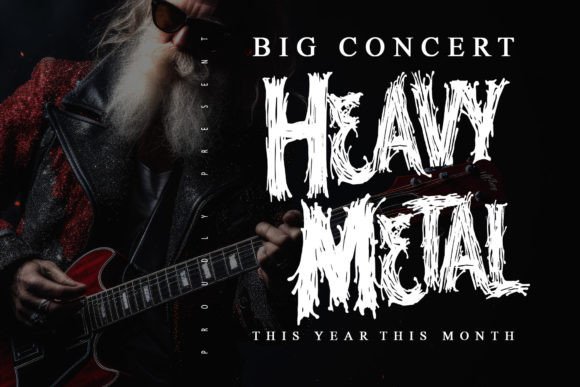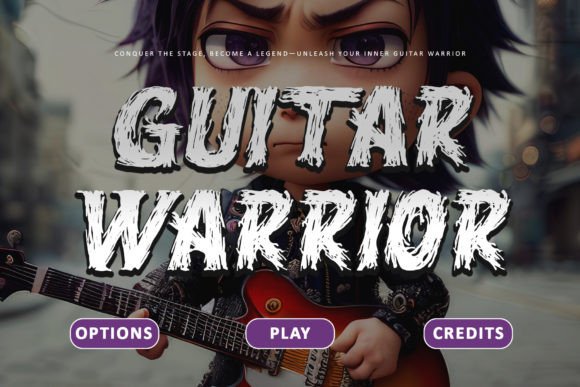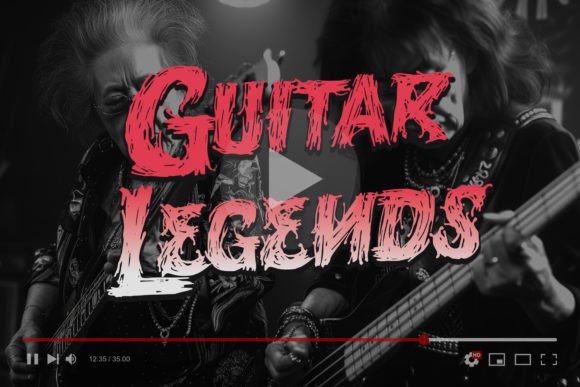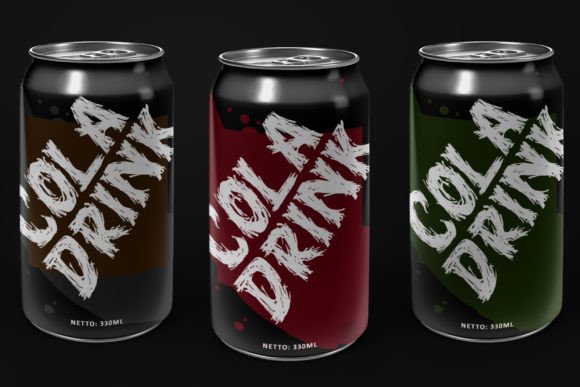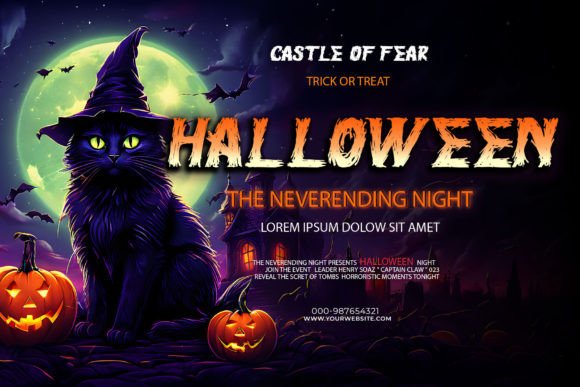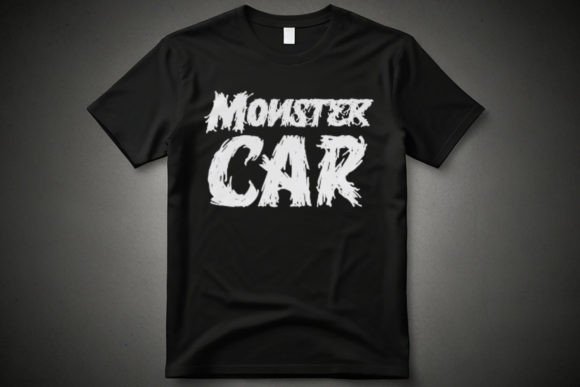
Introduction to Simbiot Font
Introducing Simbiot, a bold brush script font that pulses with raw energy and untamed style.
Crafted to capture the essence of powerful strokes and thick textures, Simbiot brings a vibrant, daring edge to your designs Whether youโre creating logos, posters, packaging, or any project that demands attention, this font delivers a striking impact with every letter.
Simbiot Font offers exceptional quality and versatility, making it a valuable addition to your design toolkit. Whether you’re creating for personal projects or commercial use, Simbiot Font delivers professional results.